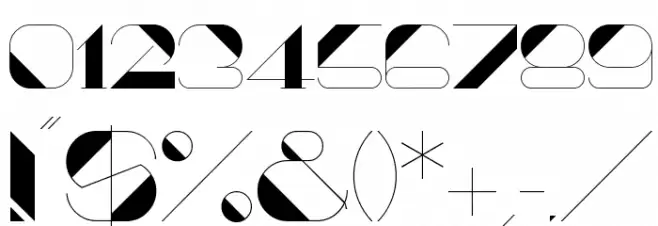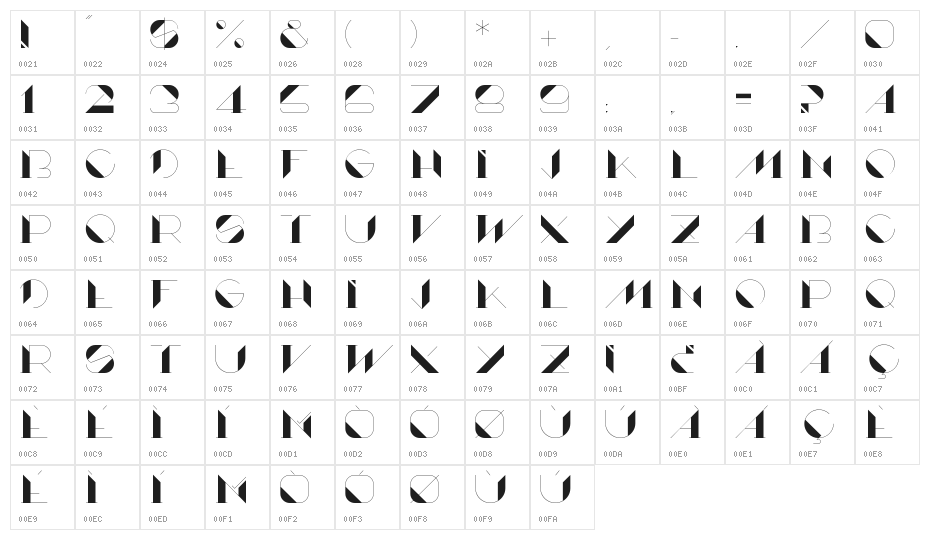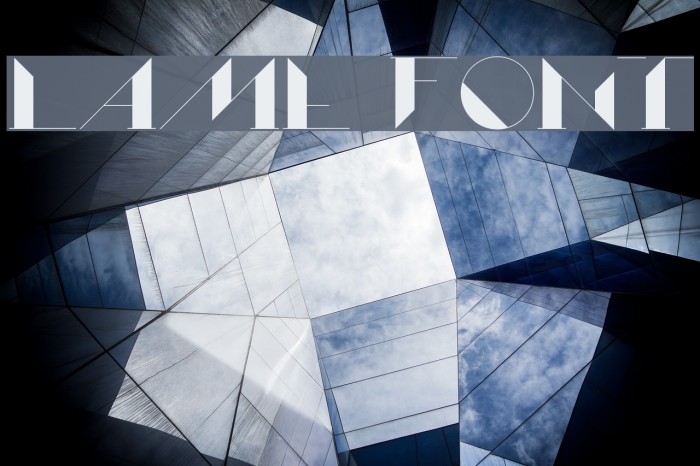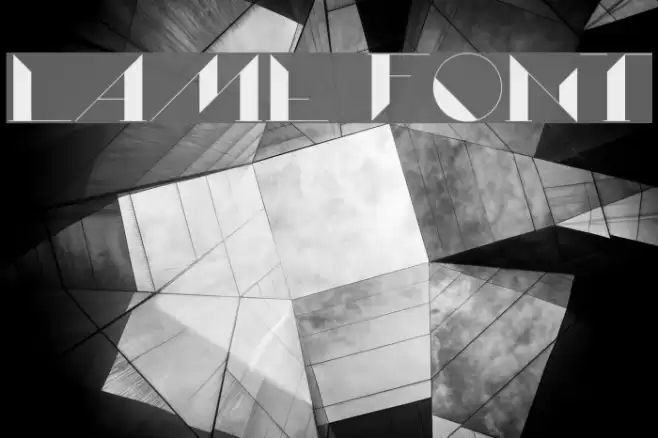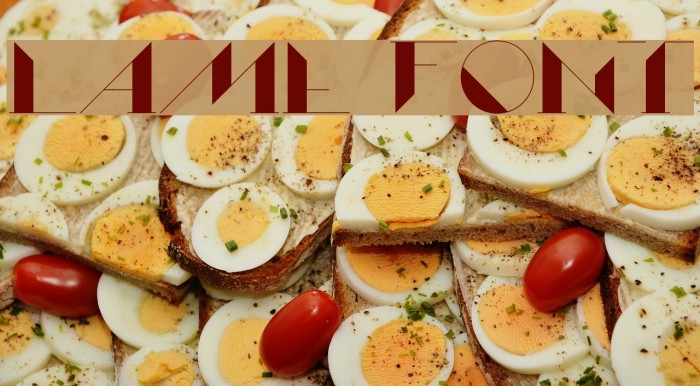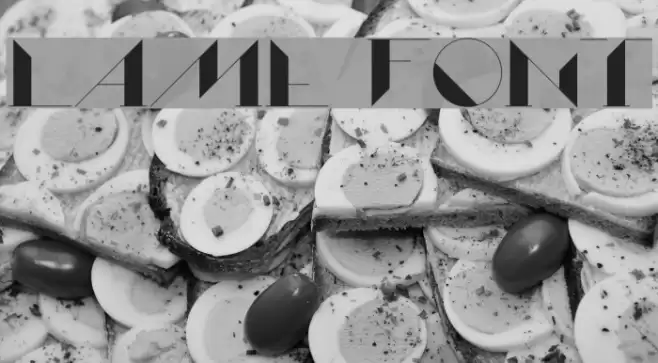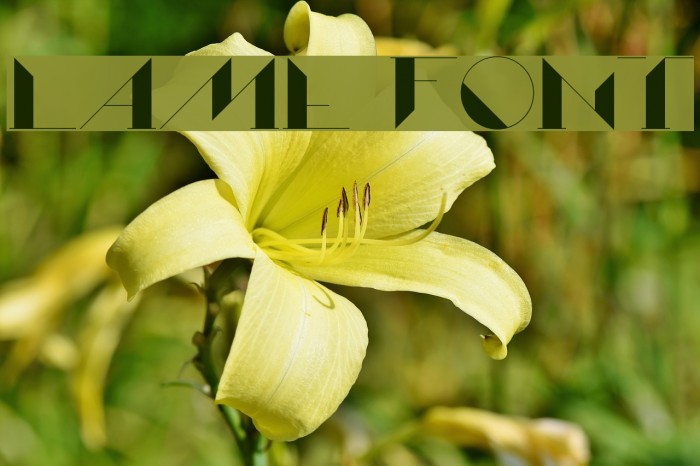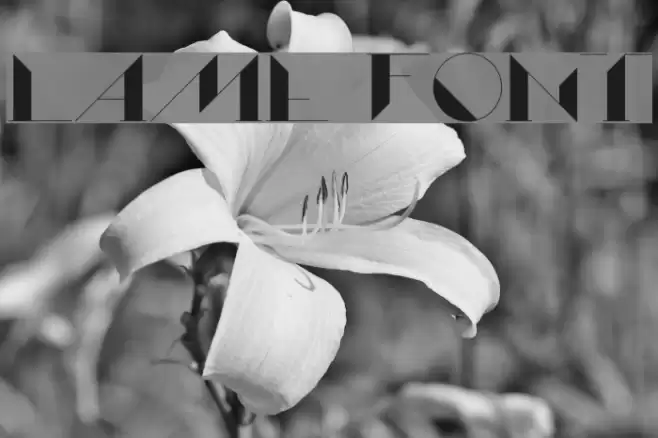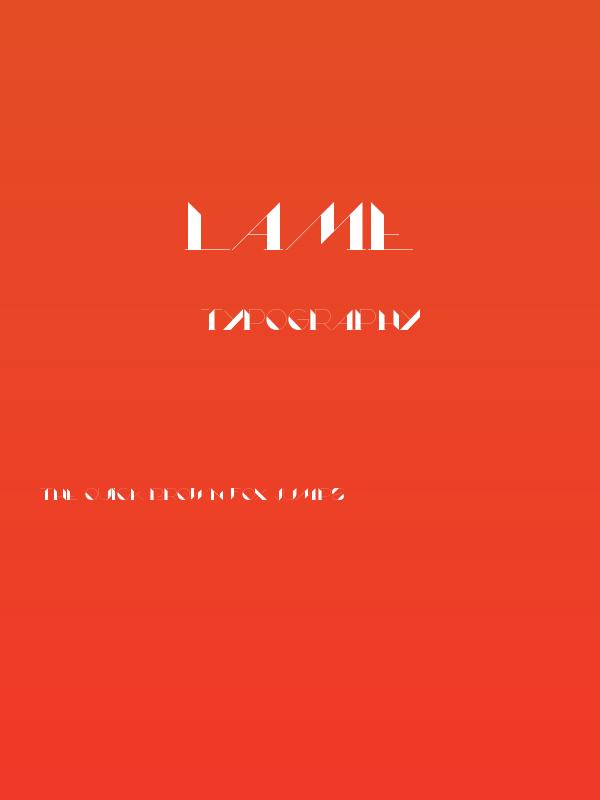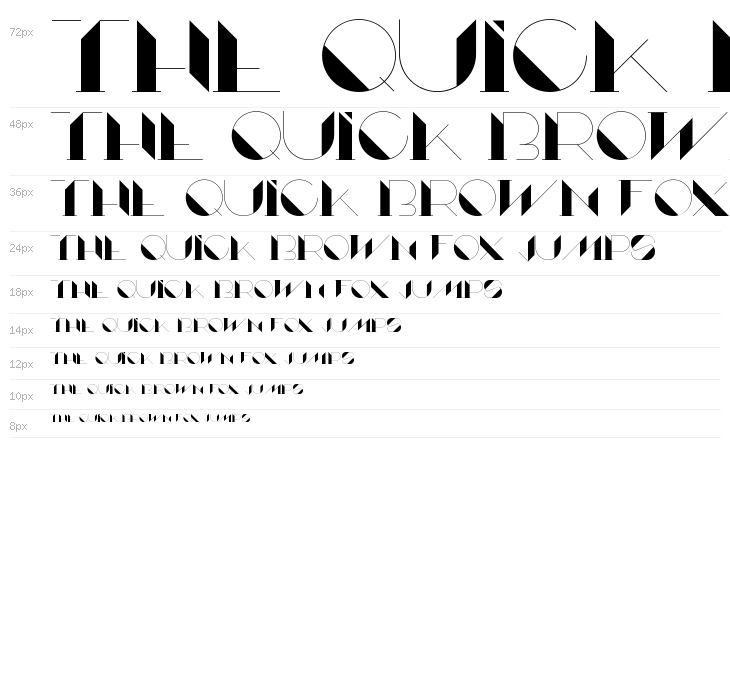
Lame Font
Lame Description
This font exhibits a modern and geometric style, characterized by its sharp angles and clean lines. The uppercase letters are particularly striking, with a futuristic aesthetic that combines both solid and outlined elements. The numbers and special characters maintain this theme, offering a cohesive look across all glyphs. The design plays with negative space, creating an intriguing visual effect that is both bold and sophisticated. This font is well-suited for projects that require a contemporary and edgy feel, making it ideal for branding, advertising, and digital media.
| Overall Style | Modern, Geometric |
| Proposed Projects | Ideal for branding, advertising, digital media, and any project needing a contemporary edge. |